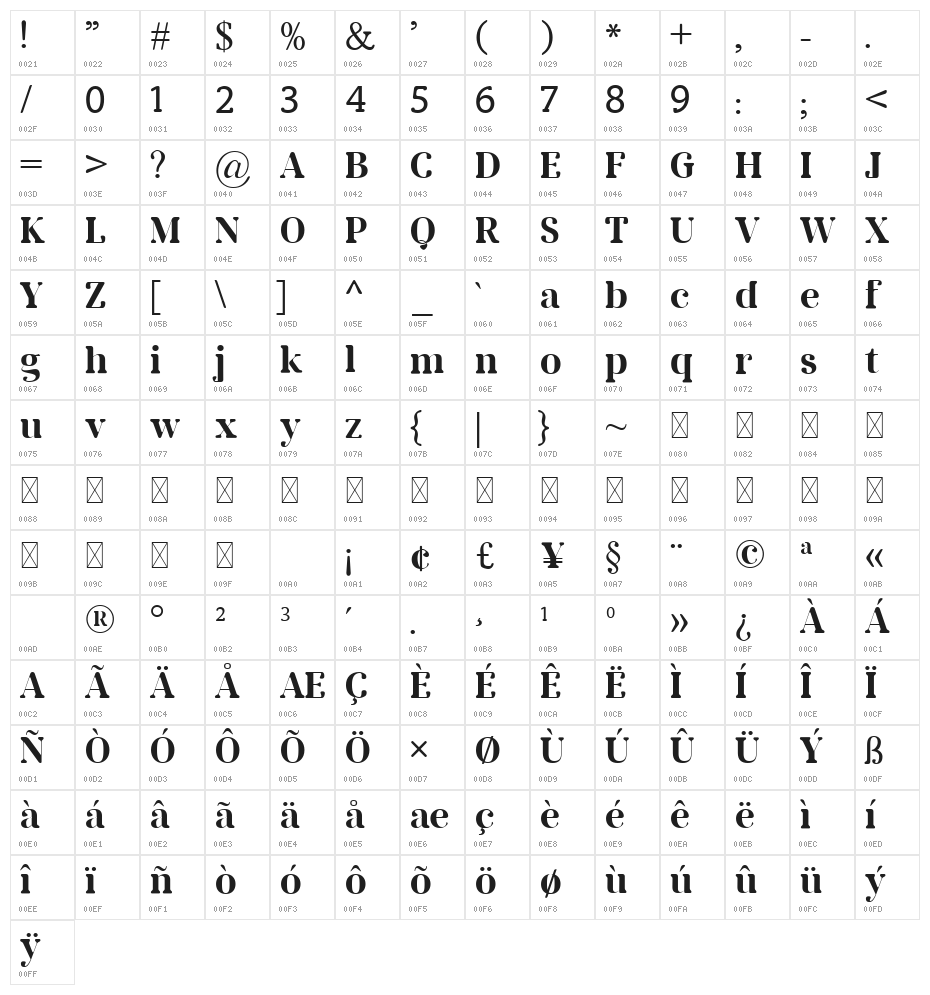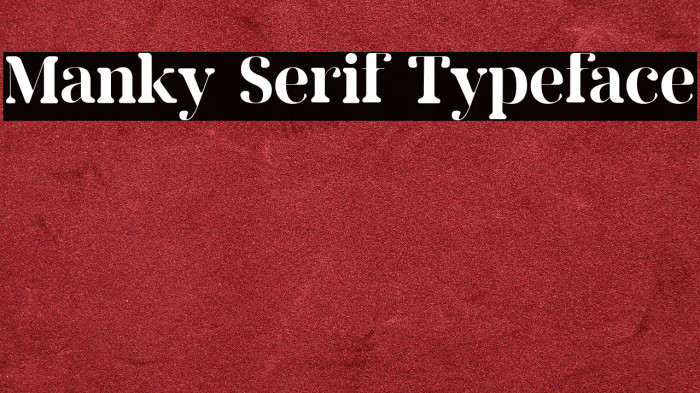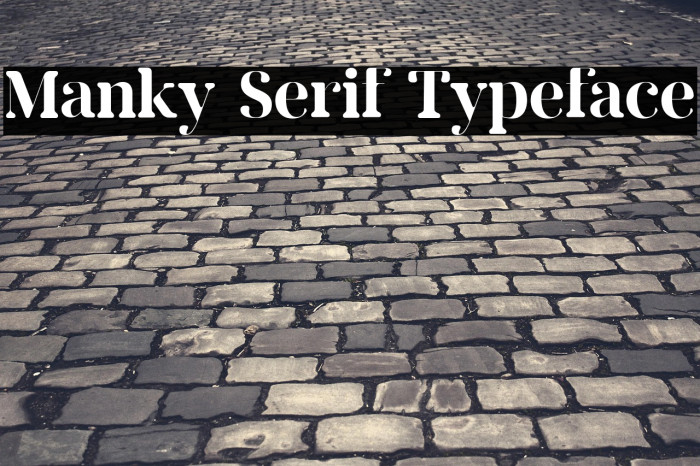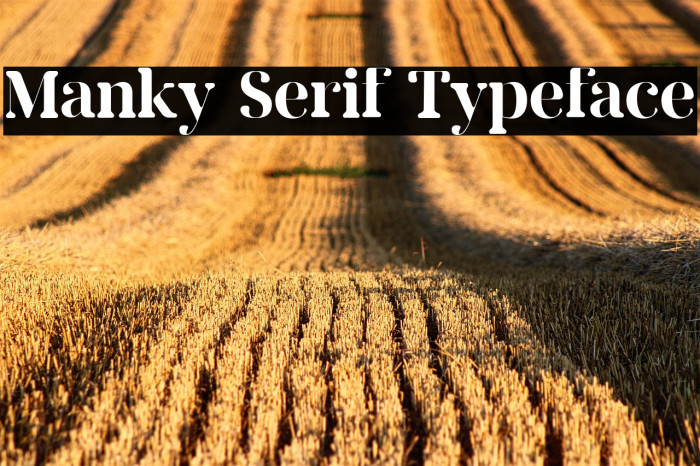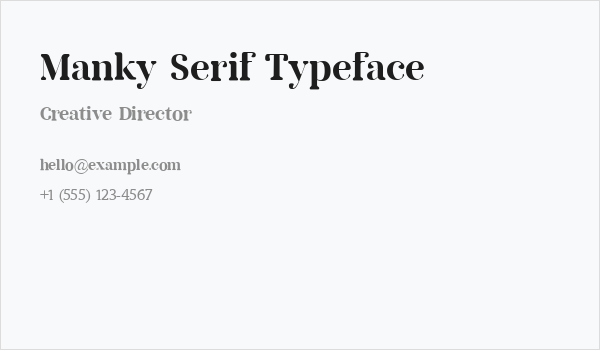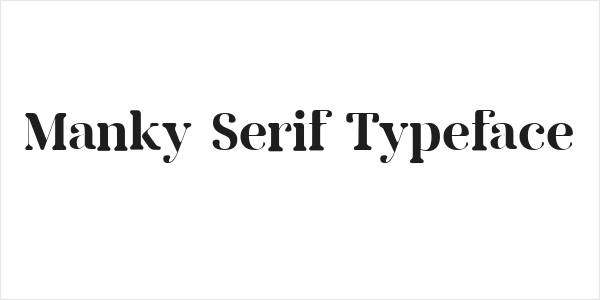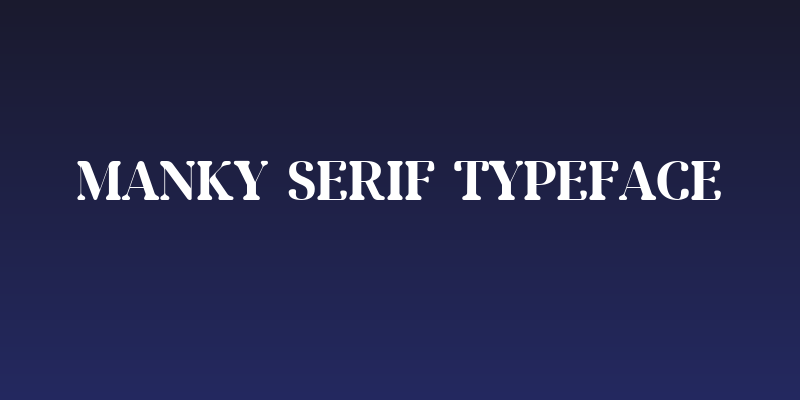
Manky Serif Typeface Font
Manky Serif Typeface Description
This typeface features a bold and expressive serif style, characterized by thick strokes and high contrast between thick and thin lines. The serifs are pronounced and add a touch of elegance and sophistication to the overall appearance. The uppercase letters are strong and commanding, while the lowercase letters maintain a consistent flow with rounded edges that soften the overall look. The numerals are clear and legible, making them suitable for various applications. Special characters are well-defined, adding versatility to the typeface. The design is both classic and modern, making it adaptable for a range of uses.
| Proposed Projects | Ideal for branding, editorial design, book covers, and luxury product packaging. |